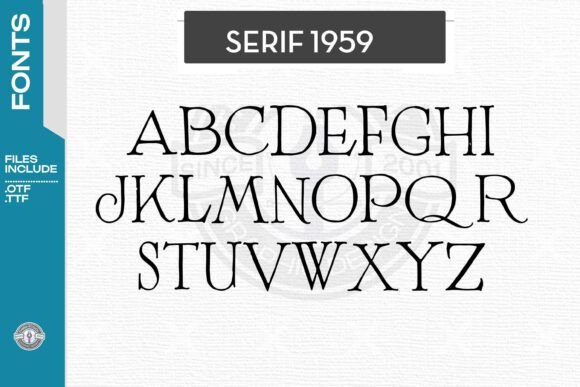
Introduction to Serif59 Font Font
Fonts play a crucial role in design, and the Serif59 Font font is a typeface that brings both character and versatility to any project. Whether you’re working on a branding project, a website, or a print design, the Serif59 Font font offers a unique style that can elevate your work.
This font is based on a font I found in a typesetting book published in 1959.
This font has uppercase It has a soft worn look.
Key Features of Serif59 Font Font
Why Choose Serif59 Font Font?
The Serif59 Font font is more than just a typeface – it’s a design tool that helps you communicate your message with style and clarity. Its unique character set and versatile design make it suitable for a wide range of applications, from elegant invitations to bold headlines.
With its carefully crafted letterforms and balanced proportions, the Serif59 Font font ensures readability and visual appeal across all mediums.
What makes Serif59 Font font special?
The Serif59 Font font stands out with its unique design, exceptional readability, and versatility across various design applications.